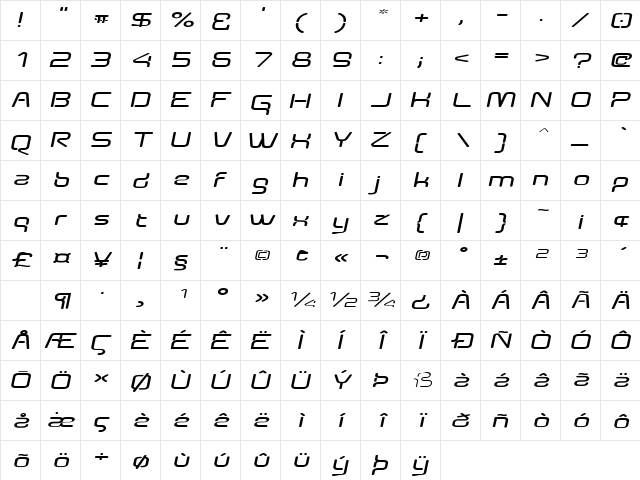
AunchantedExpandedBoldOblique Regular Font Preview
Design Context for AunchantedExpandedBoldOblique Typeface
AunchantedExpandedBoldOblique takes a measured approach to typography — its balanced proportions and neutral character make it a reliable workhorse for both digital and print work. The dynamic lean of this cut emphasises speed and emphasis in any layout. The heavy weight commands attention and anchors typographic hierarchies.